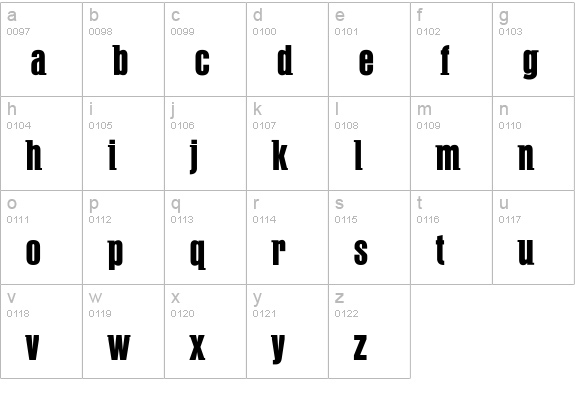
PFFusionHeavy-Regular Font Details
PFFusionHeavy-Regular is the standard, neutral variant in the PFFusionHeavy typeface family \xE2\x80\x94 well suited to general body text, paragraphs, and standard typographic work.
PFFusionHeavy-Regular is a bold and powerful font that exudes strength and modernity. With its thick lines and sturdy appearance, this font is perfect for making a bold statement in any design project. Whether you're creating a striking headline or a standout logo, PFFusionHeavy-Regular will command attention and leave a lasting impression. Best of all, this impressive font is available for free download at FontsMarket.com. With just a few clicks, you can add PFFusionHeavy-Regular to your font library and start using it in your projects right away. Don't miss out on this fantastic opportunity to enhance your designs with a high-quality, free font like PFFusionHeavy-Regular.